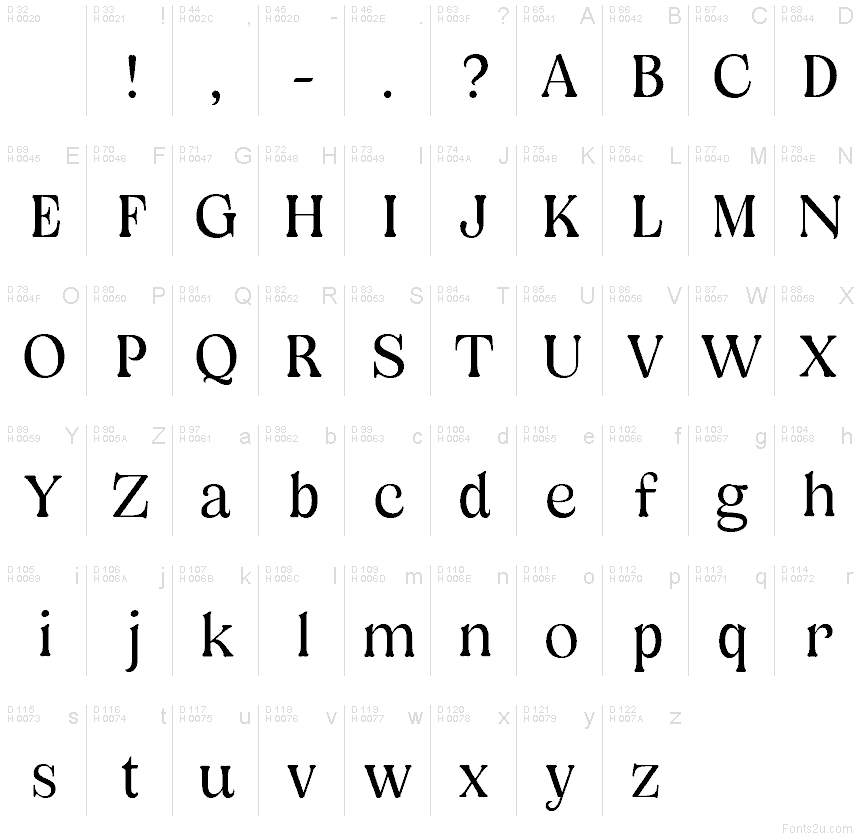
CF Oliviera Demo Regular
CF Oliviera font designed by Creatifont Studios presents an elegant and sophisticated appearance through its vintage serif letters. Classic and refined, this typeface is filled with traditional elements and thin serifs giving it a beautiful structure that is hardly mistaken for any other design.
The free serif font can be used in projects looking for a classic touch such as books, logos, magazine covers, brand identities. Certain advertisements, posters or invitations could also be a great fit. Furthermore, how about product packaging design for premium brands?